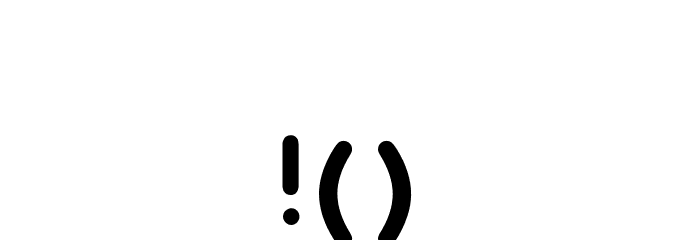
Mothanna Bold Oblique Font
This font features a bold and oblique style, characterized by its strong and assertive presence. The letters are slanted, giving a dynamic and forward-moving appearance. The strokes are thick and consistent, providing a sense of stability and confidence. The font's design is modern and sleek, making it suitable for contemporary projects that require a touch of boldness and flair. The characters are well-defined, with clean lines and a uniform thickness that enhances readability while maintaining a stylish edge.
A bold and oblique font with a modern, dynamic style.
- Proposed Projects: Ideal for branding, advertising, headlines, and any project that requires a bold and modern look.